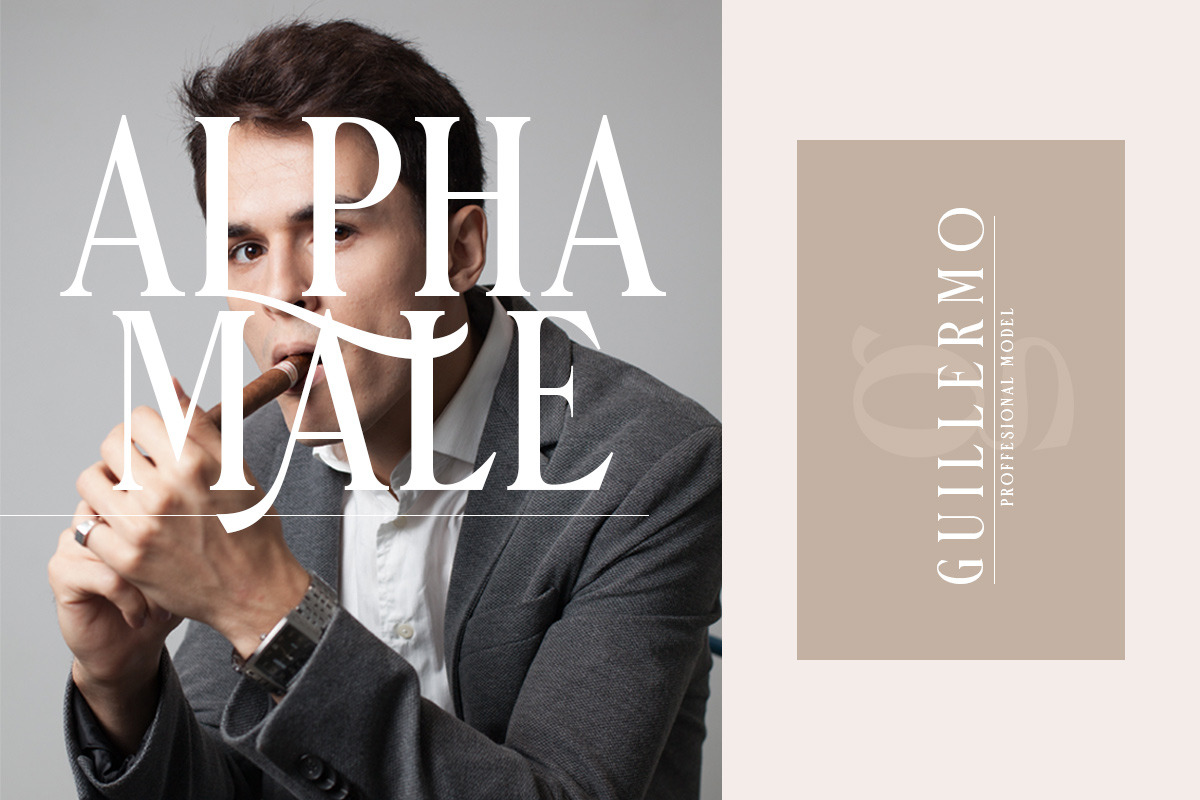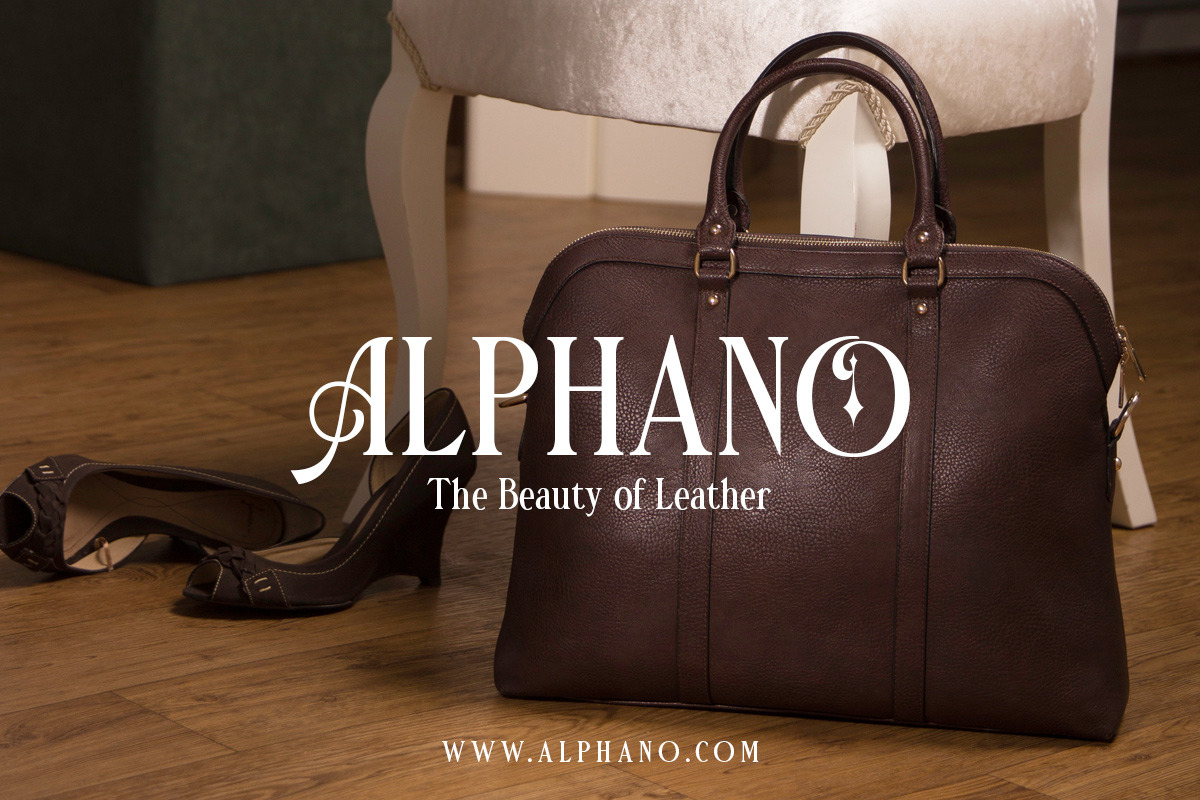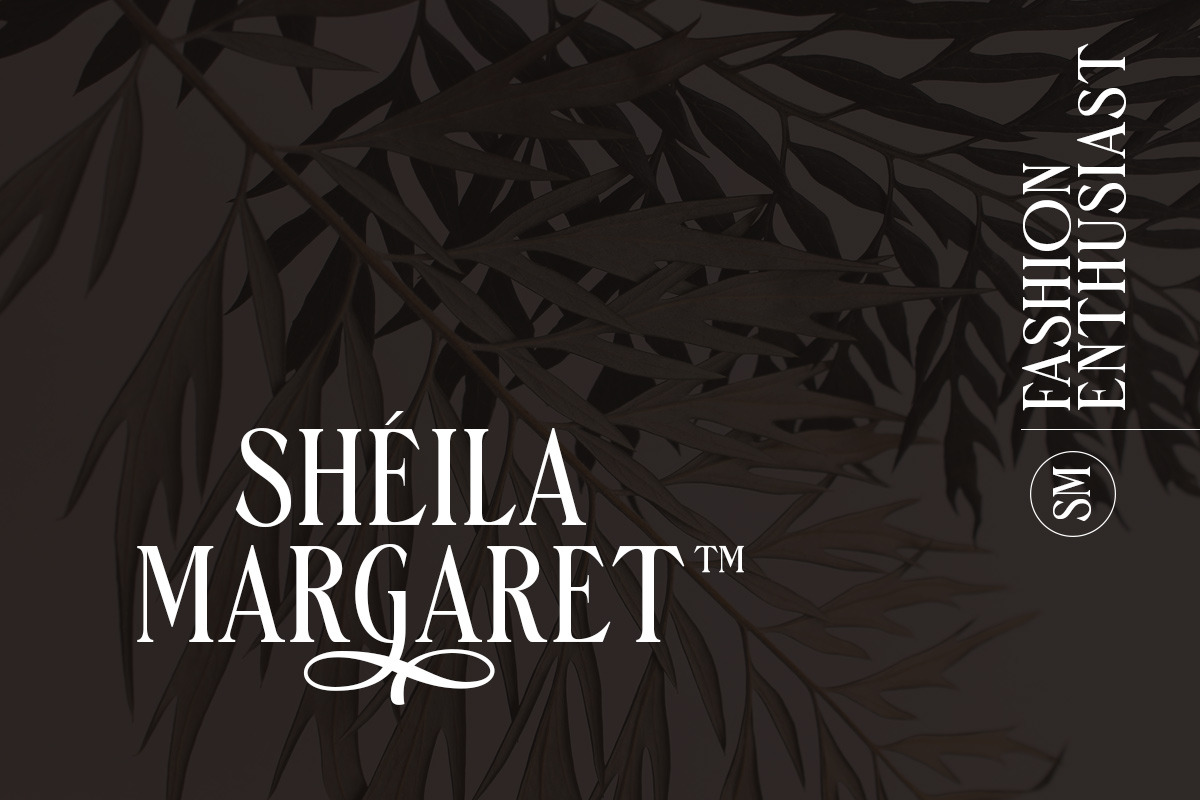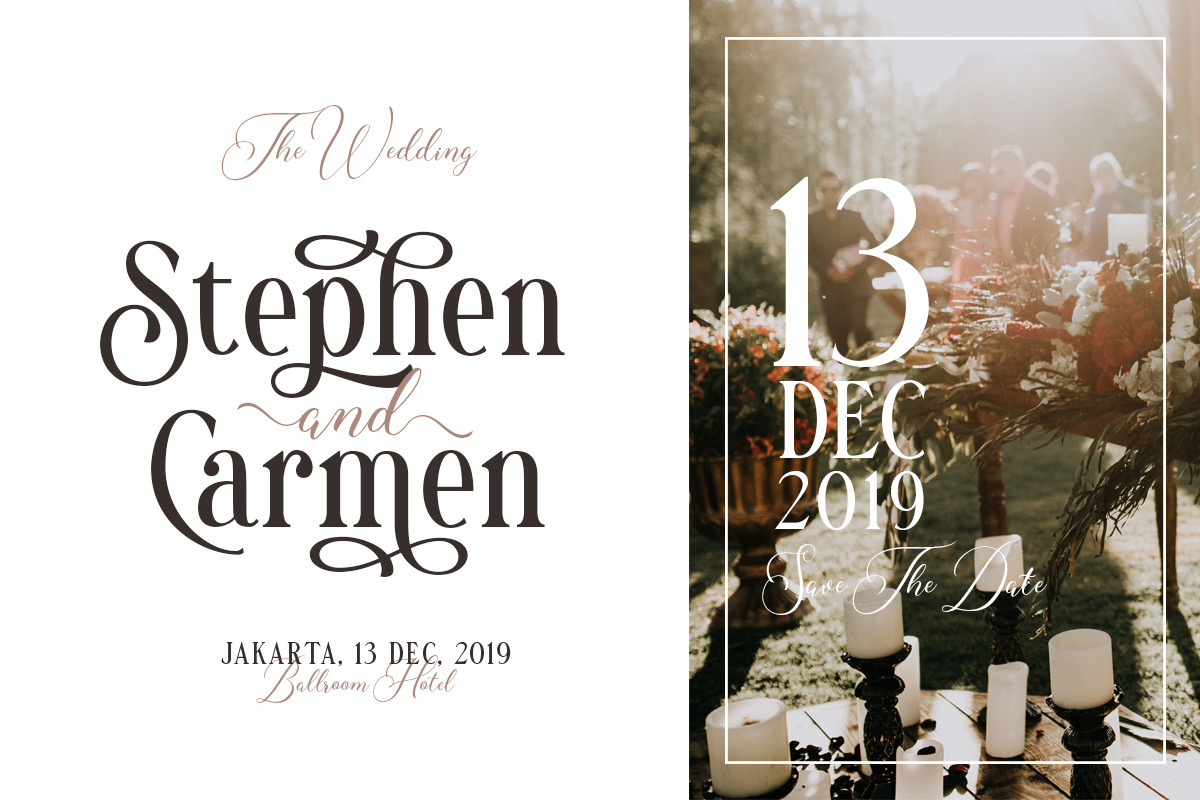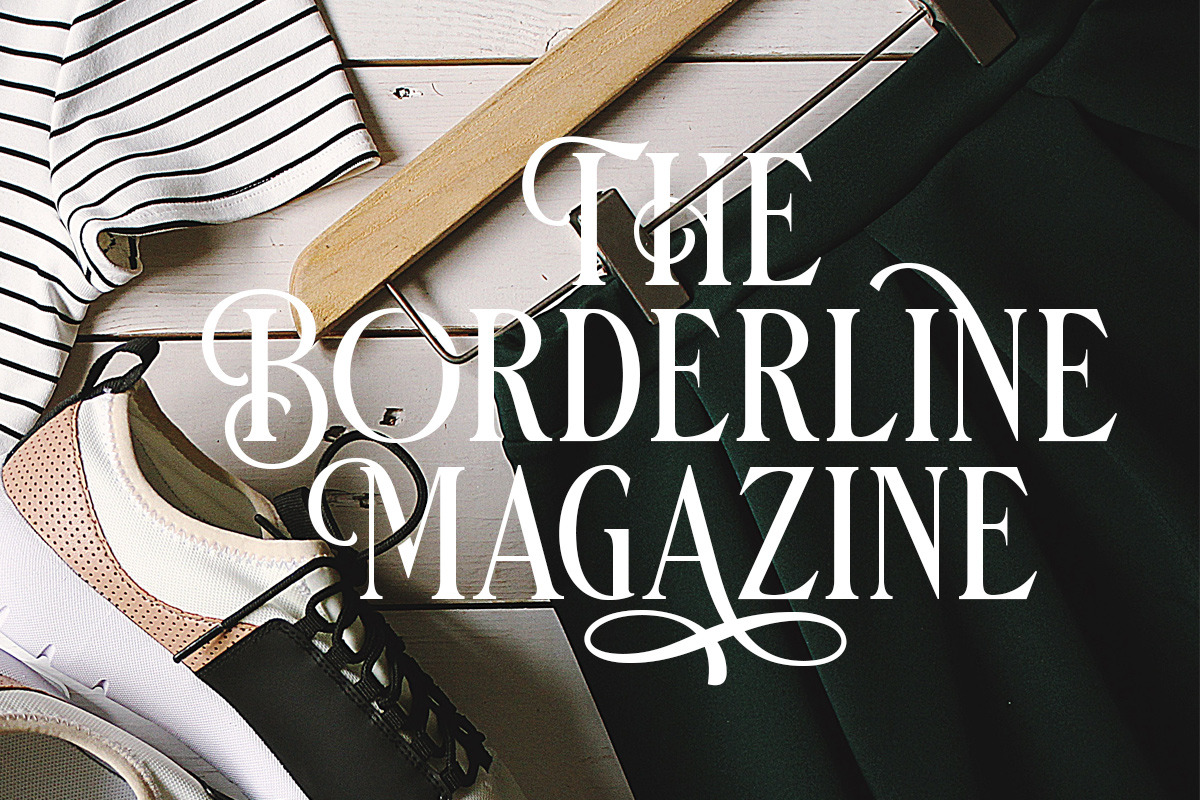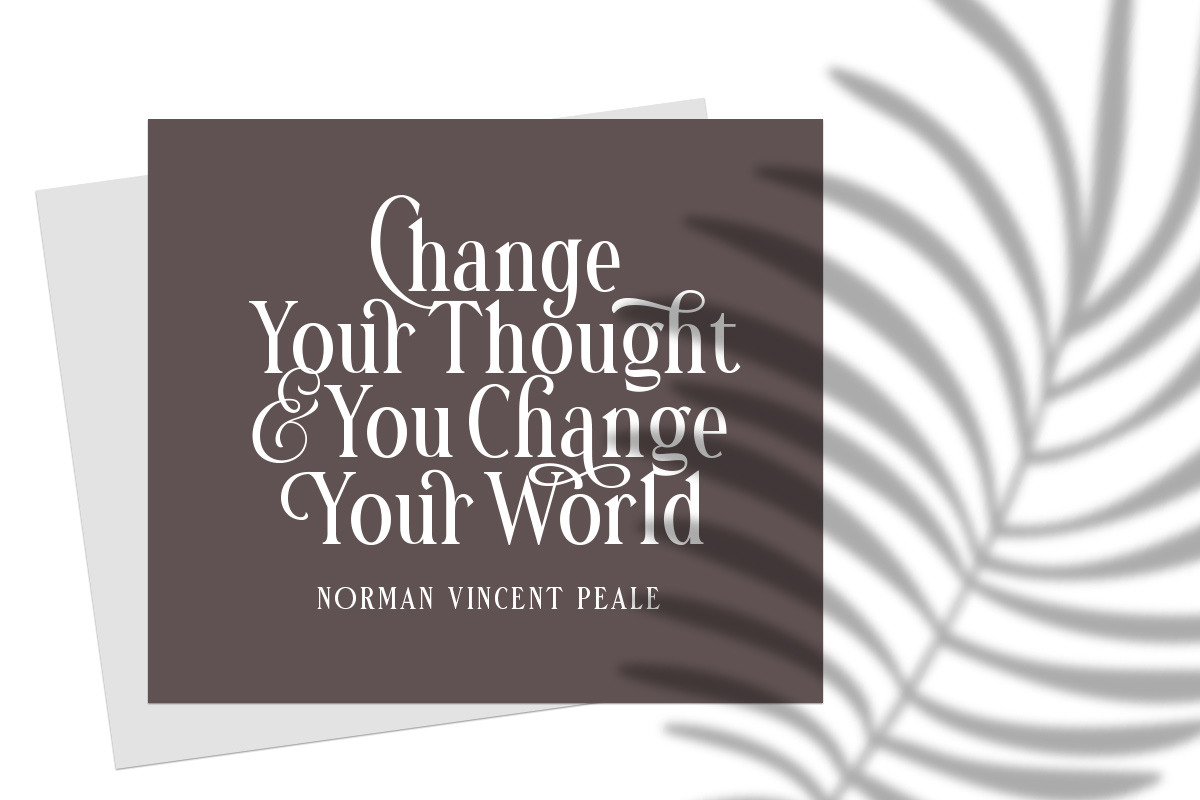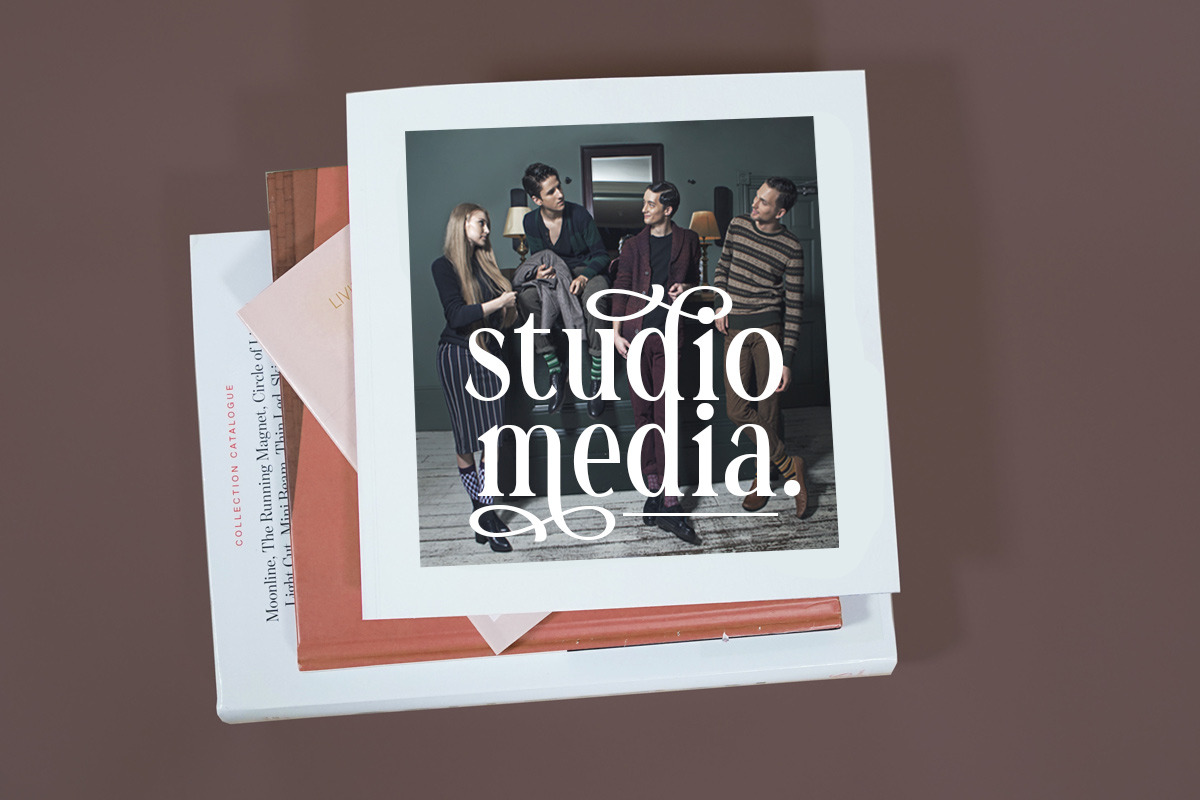
Danielle Harris - Editorial Font
Introducing, Danielle Harris. A typeface with modern yet classy feel! They works perfect for you who needs a typeface for headline, logotype, apparel, invitation, branding, packaging, advertising etc. This typeface is comes in uppercase, lowercase, punctuation, symbols, numerals, stylistic set alternate, ligatures, etc also support multilingual.
Why Danielle Harris - Editorial Font is worth a look
Danielle Harris - Editorial Font by Letterhend Studio fits naturally into Branding, posters, packaging, typography.